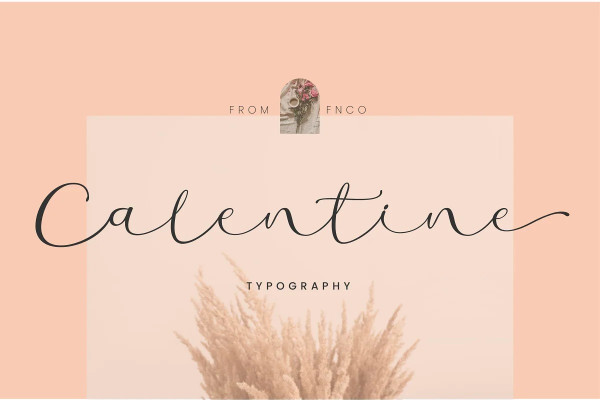
Calentine Font
Calentine Font – Wedding Font, Calligraphy Font, our latest creation, modern serif with various alternates and ligatures, multilingual support, an updated blend of bohemian style, suitable for branding, business, logos, magazines, and others